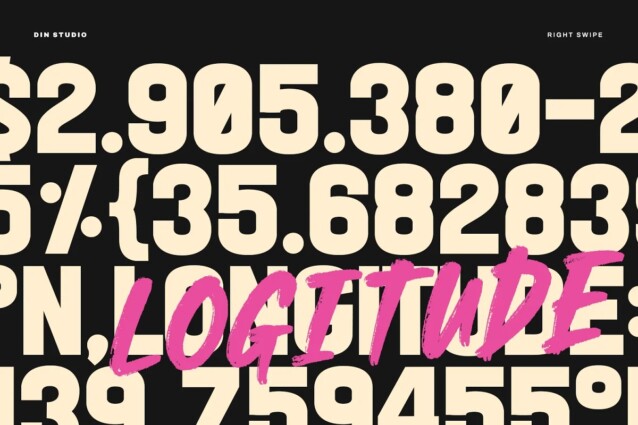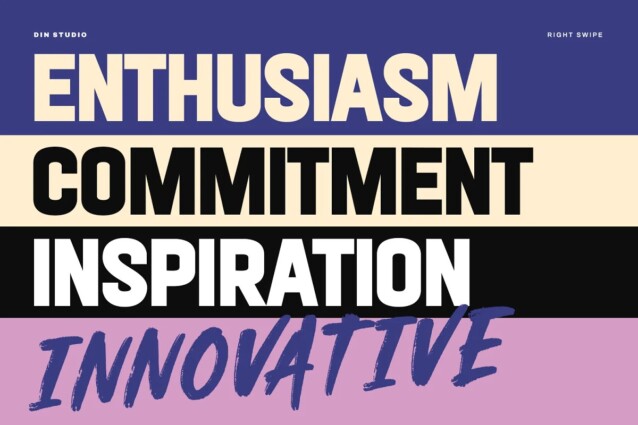
Right Swipe Font
Right Swipe Font is a simple, condensed sans-serif font with bold and complex personality. The sans serif font, in the Right Swipe, is the epitome of simplicity and elegance. Designed in uppercase, it boasts clean lines and a minimalist aesthetic, making a versatile look. This sans serif typeface is all about timeless sophistication and modern appeal.
In contrast to its sans serif, the brush font adds a touch of creativity and spontaneity to the duo. The brush font’s characters are made in round shapes and consistent proportions, creating a harmonious appearance. Each letter is meticulously crafted with fluid strokes, evoking a sense of warmth and approachability. Together, this duo offers a harmonious balance of elegance and creativity. This combination of a simple and refined sans serif font with a warm and inviting brush font allows you to strike the perfect tone for your design projects. In addition, enjoy the features here.